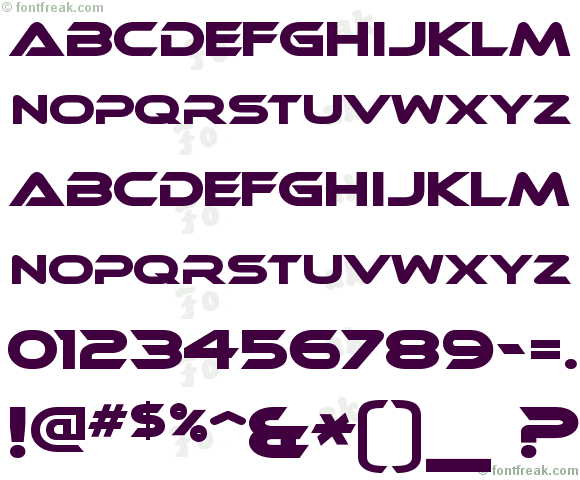
Ethnocentric
About Ethnocentric
The Ethnocentric font, designed by Ray Larabie in 1999 and updated in 2004, is a distinctive display typeface that stands out with its bold, geometric forms and modern aesthetic. This freeware font showcases a strong, sans-serif style, characterized by its thick stroke weight and minimal contrast, making it an excellent choice for eye-catching designs. The letters feature a unique, slightly angular appearance, which adds a sense of dynamism and energy to any project. The spacing is well-balanced, allowing for easy readability while maintaining a contemporary look.
The Ethnocentric font is particularly well-suited for various creative applications. It shines in use cases such as movie posters, where its striking visual presence can capture attention and convey a sense of motion. Additionally, it works wonderfully in graphic designs for music albums, providing an edgy vibe that appeals to younger audiences. Restaurant menus can also benefit from this font, as it adds a modern flair that aligns with contemporary dining experiences. Furthermore, Ethnocentric is an excellent choice for branding projects, helping small business owners create memorable logos that stand out in crowded markets.
Targeting graphic designers, content creators, and small business owners, the Ethnocentric font offers versatility and style. Its bold characteristics allow it to be used in both print and digital formats, making it a valuable addition to any designer’s toolkit.
In summary, the Ethnocentric font free download is a unique typeface that merges modernity with strong visual appeal. Its geometric forms and bold presence set it apart from other fonts, making it an ideal choice for anyone looking to make a statement in their design work. Whether for personal or commercial use, Ethnocentric brings a fresh perspective to typography.